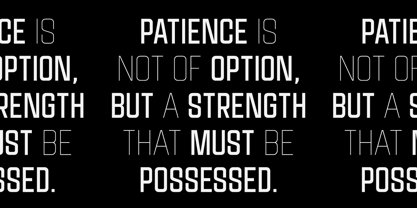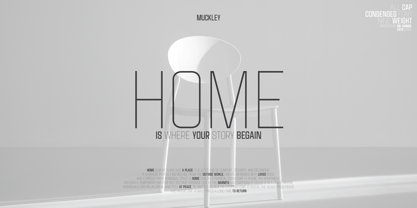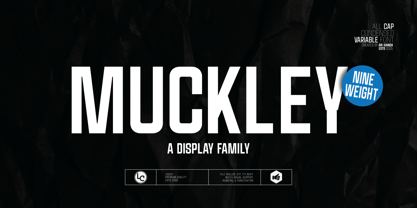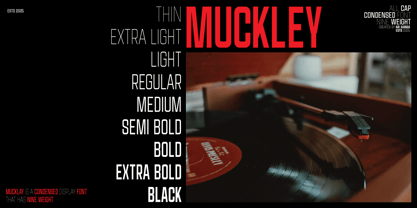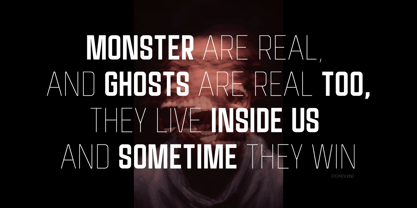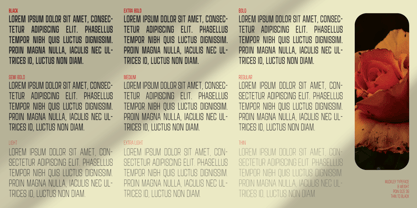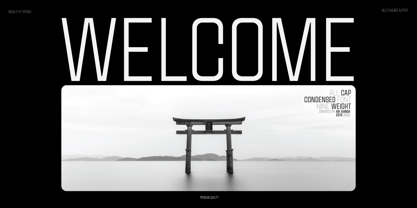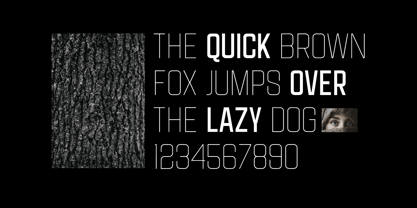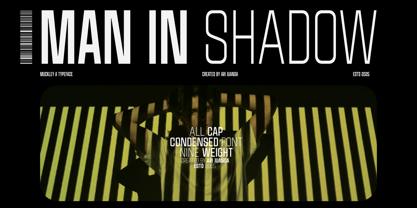
Muckley
by Linecreative
The Muckley Font Family was designed by Ari Juanda and published by Linecreative. Muckley contains 9 styles and family package options.
Muckley Display is a condensed font family, inspired by movie titles, this font comes with nine weights that are enough to complete your design needs, this font is designed quite firmly and gives a strong impression with a modern touch.